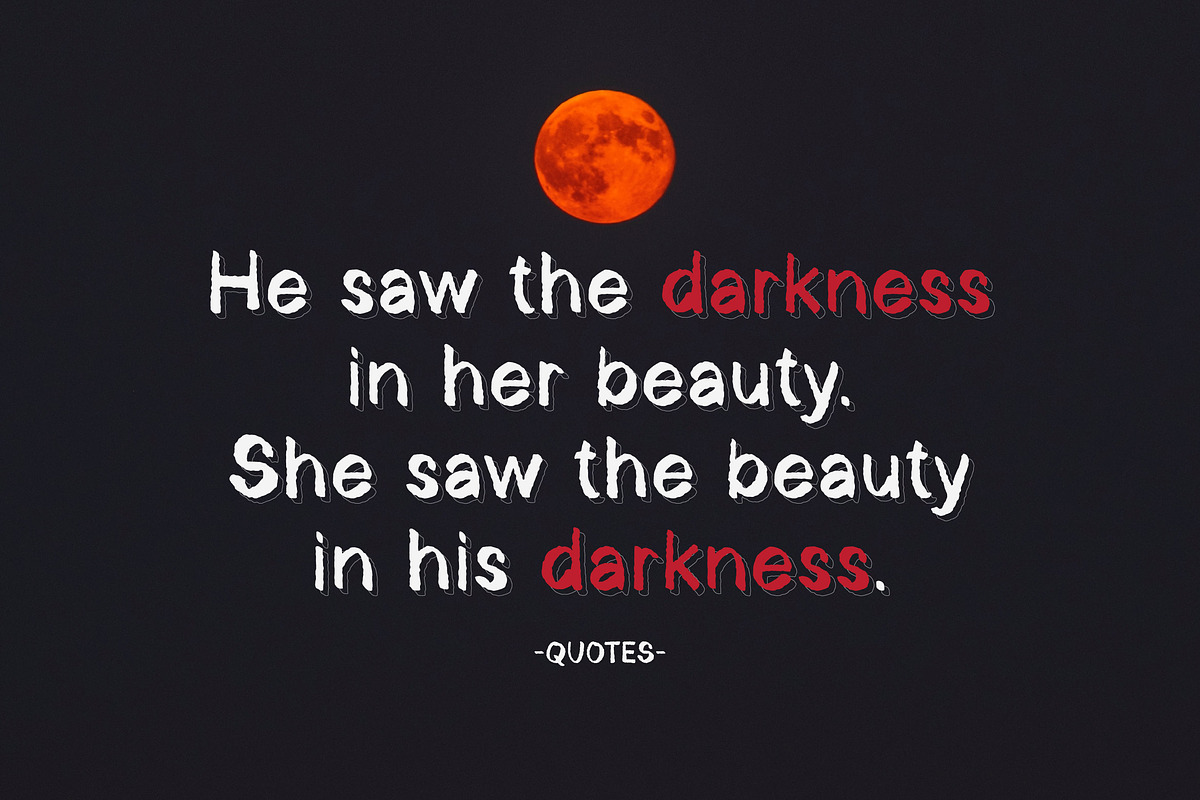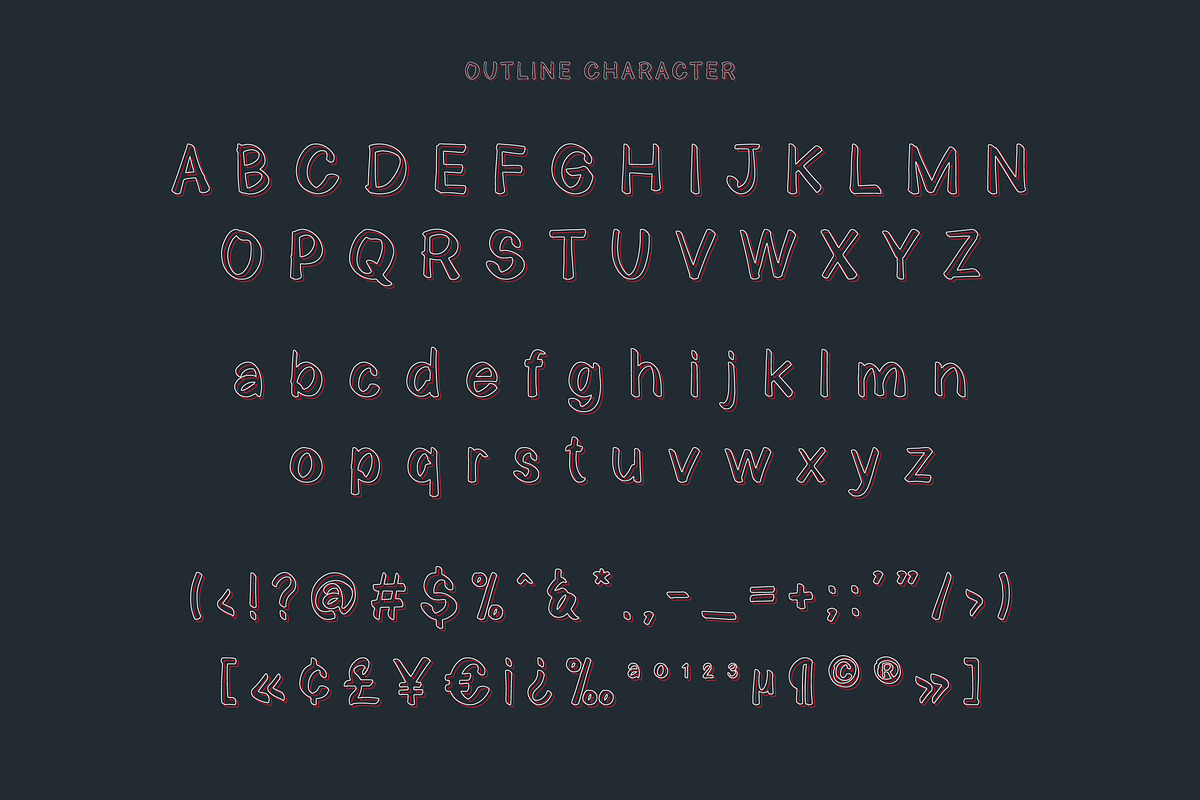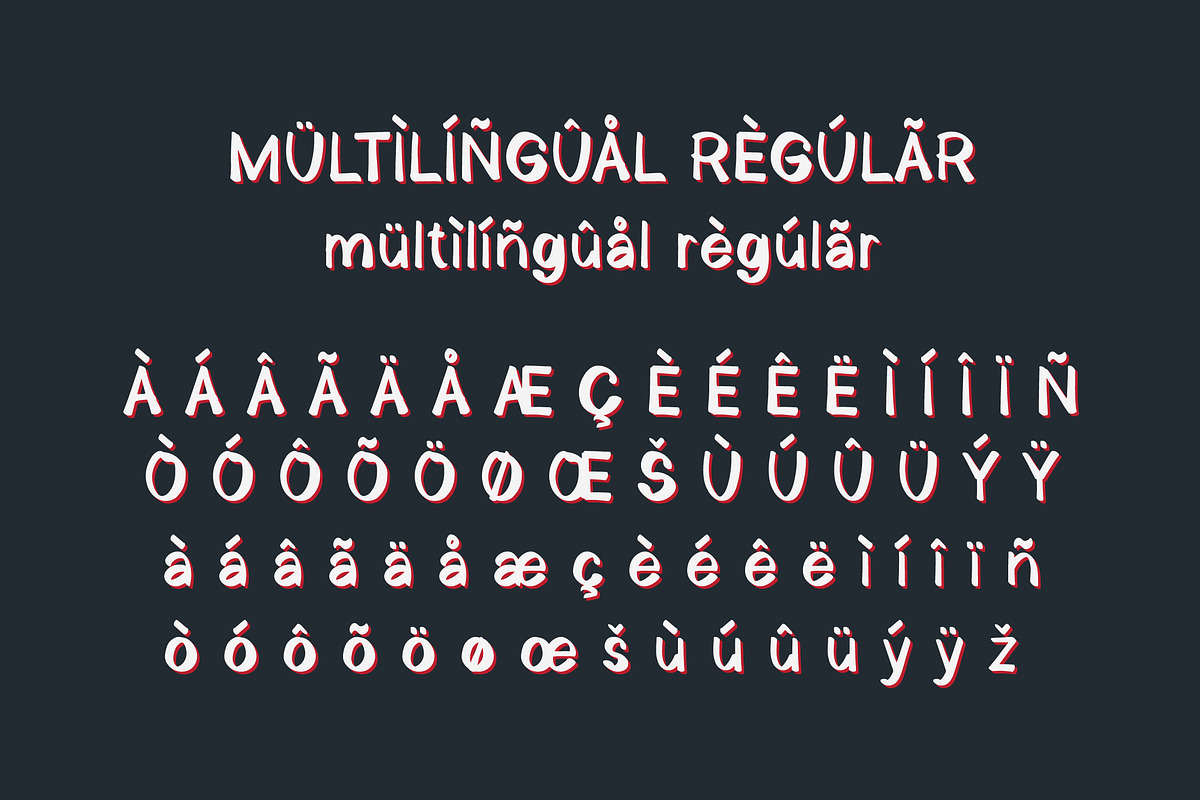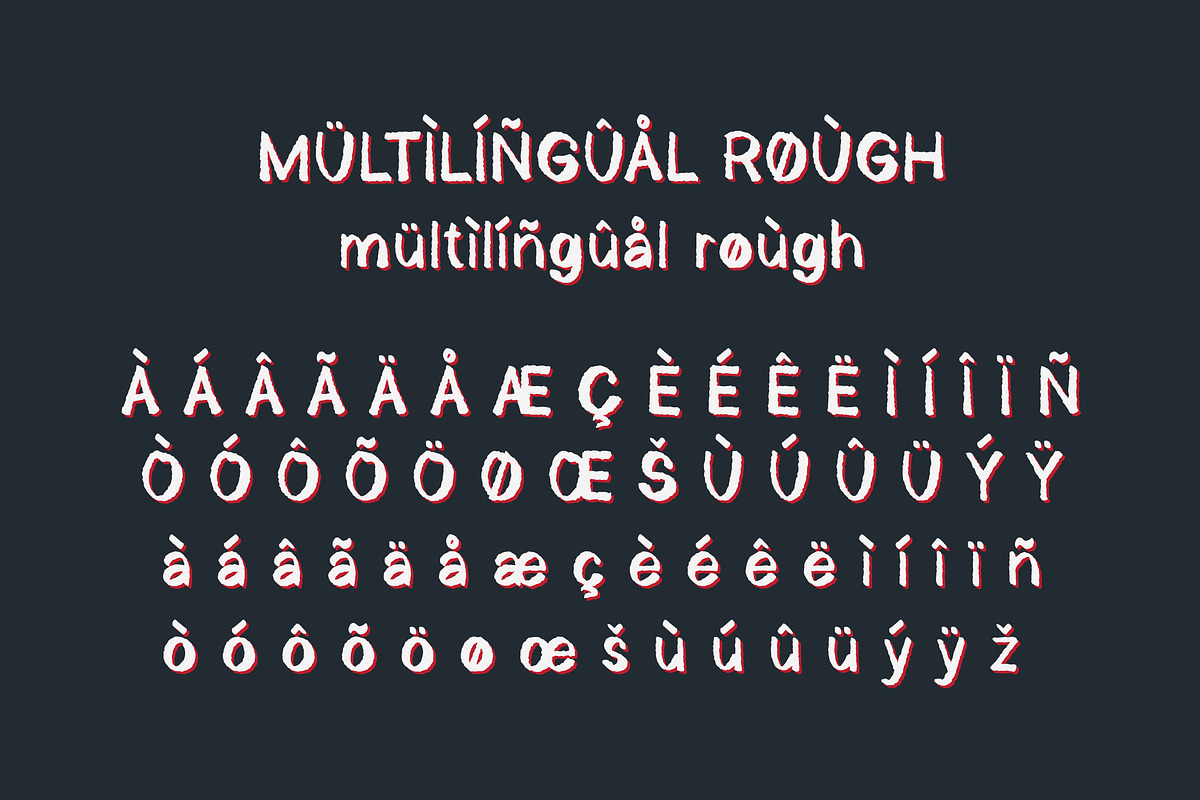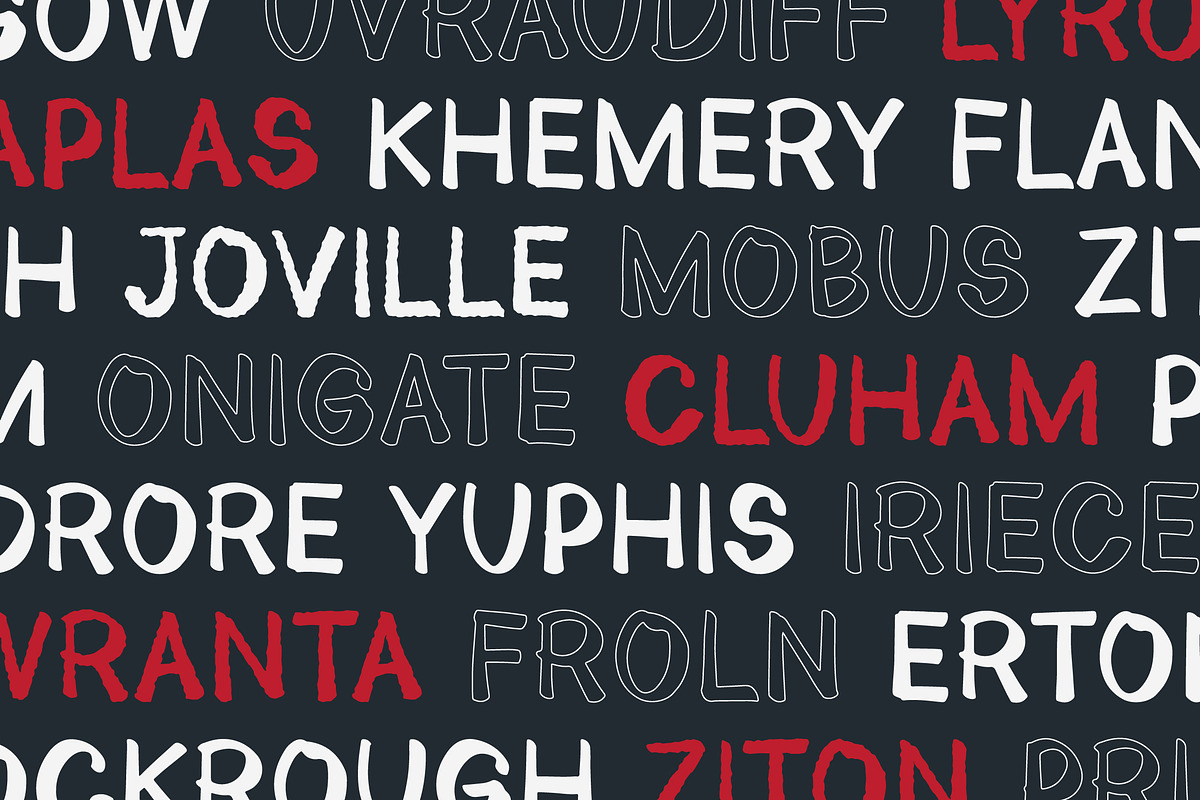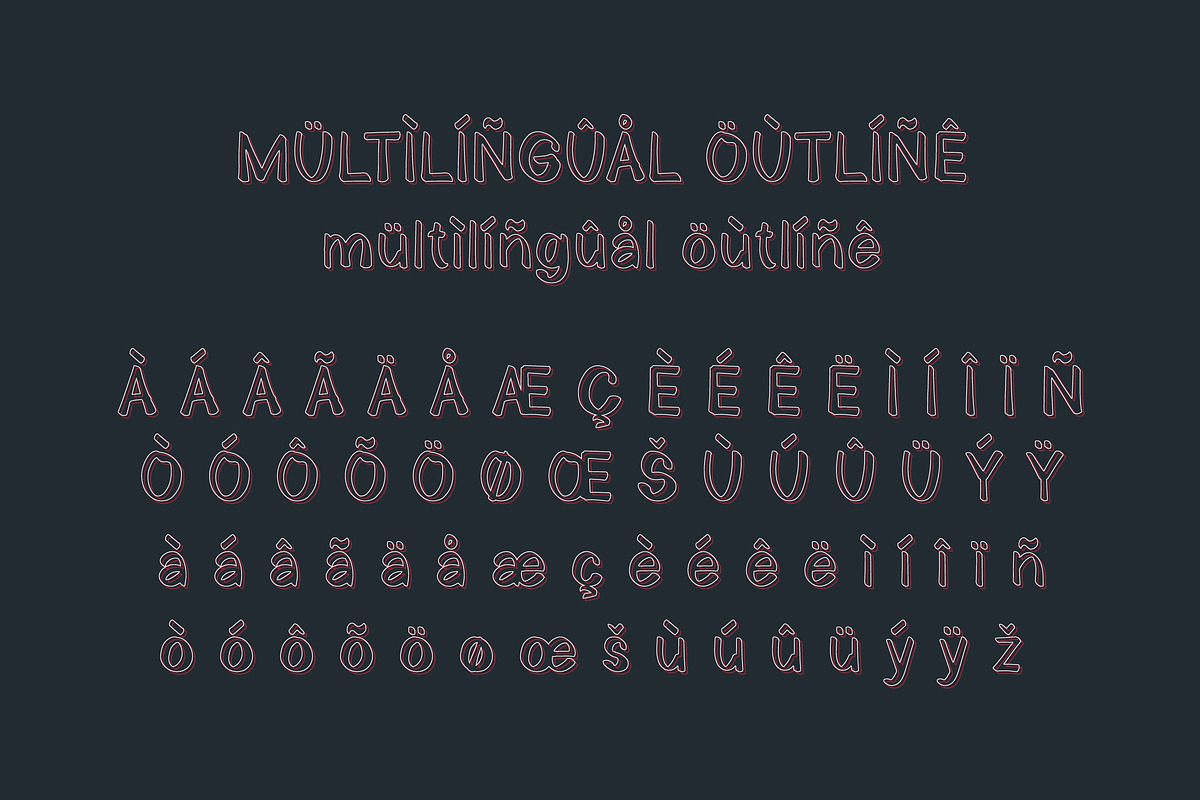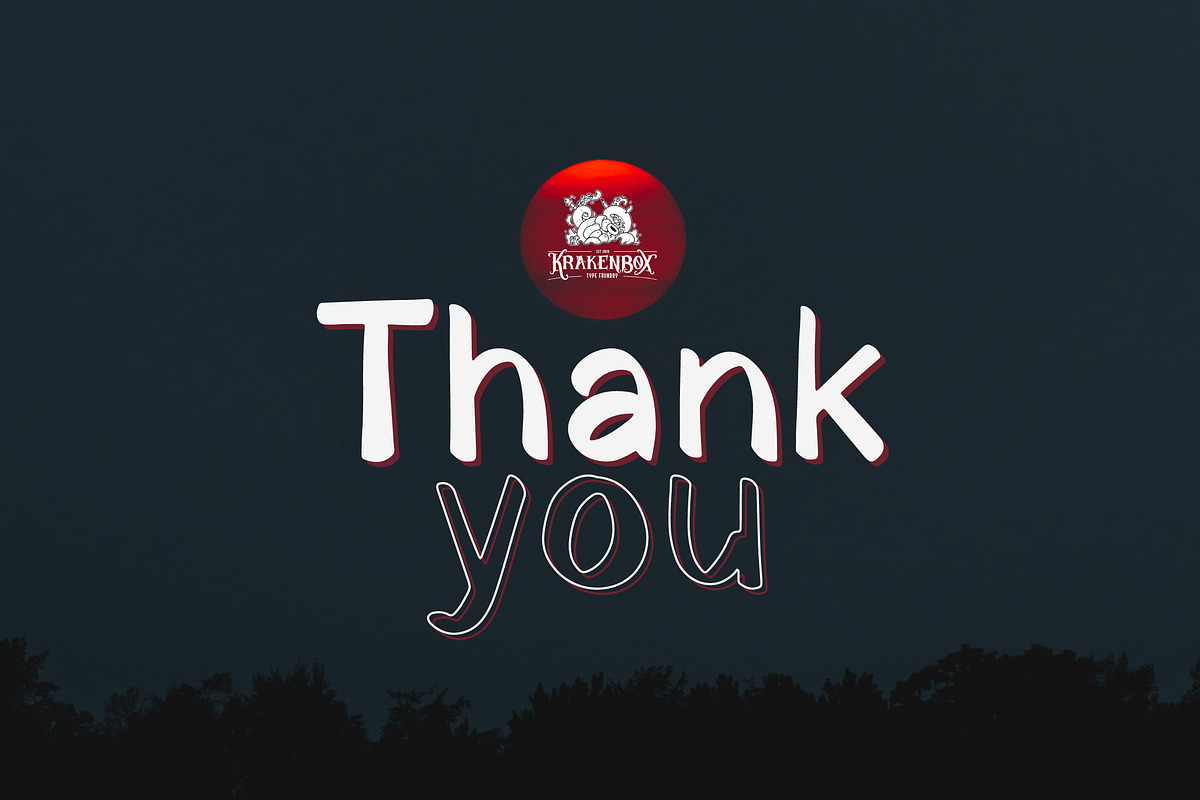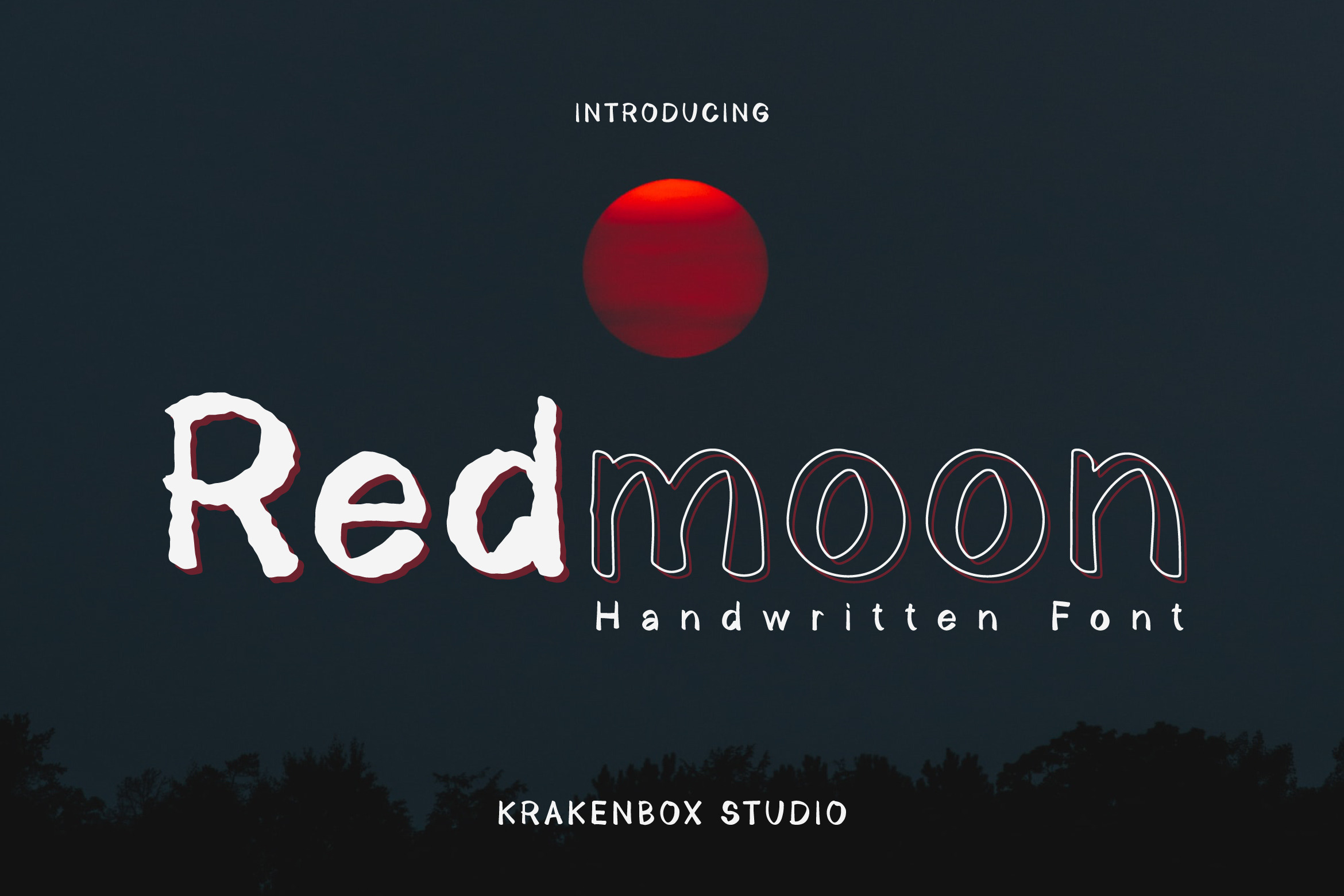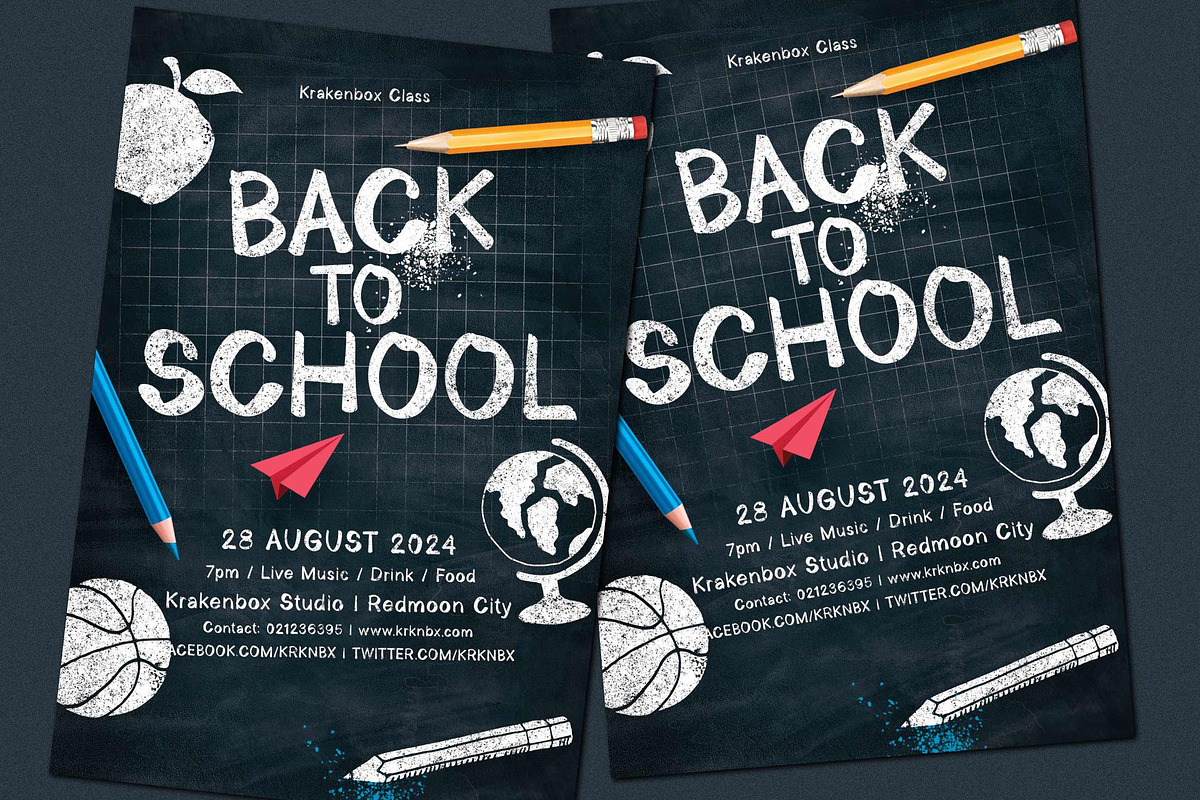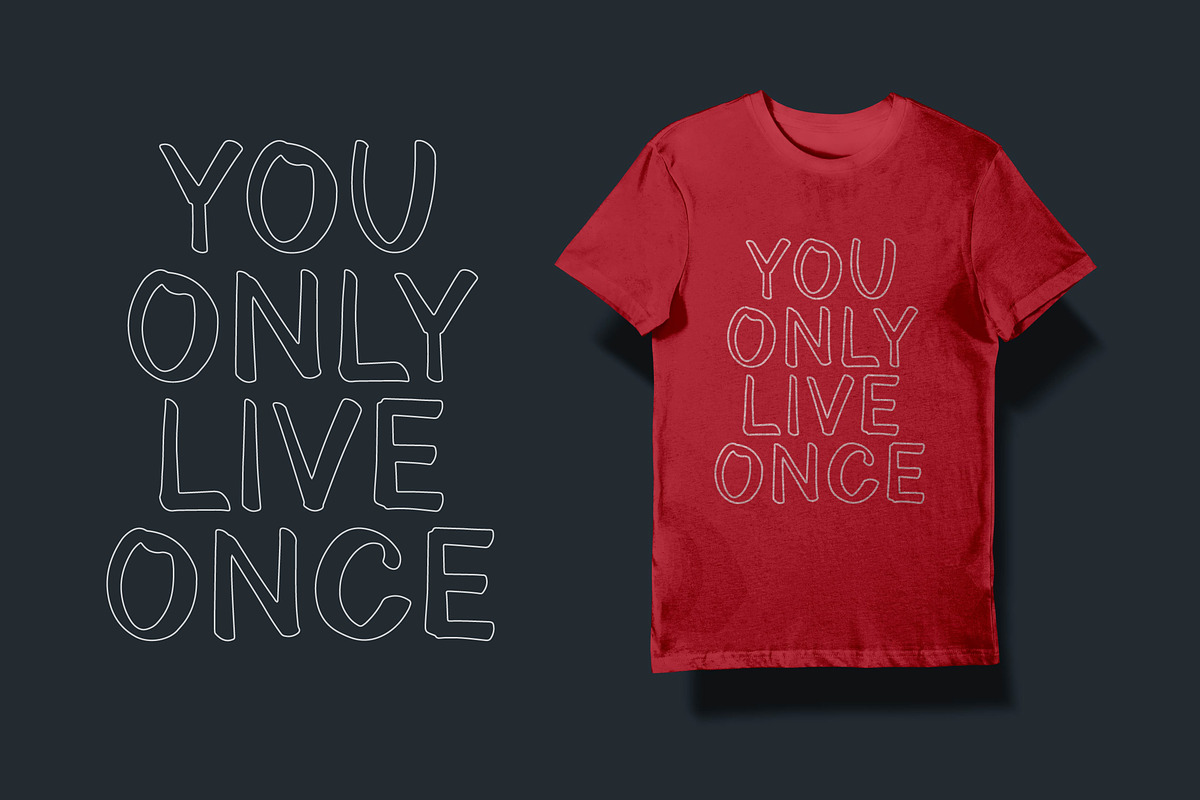
Redmoon - Handwritten Font
Introducing Redmoon - Handwritten Font by KrakenBox
Redmoon is a cute and playful handwritten font. Use this font to add that special cool touch to any design idea you can think of!
Redmoon is best for:
- logos, branding, & Signatures.
- Flyers, Album cover, Magazine, & Advertisements.
- Website design , design blogs, & fashion.
- Quote graphics for social media.
- and also it works great for other projects.
- 3 Fonts style, Regular, Outline, and Rough.
- Character Set (Uppercase and Lowercase).
- Numerals and Punctuation (OpenType Standard).
- Accents (Multilingual characters).